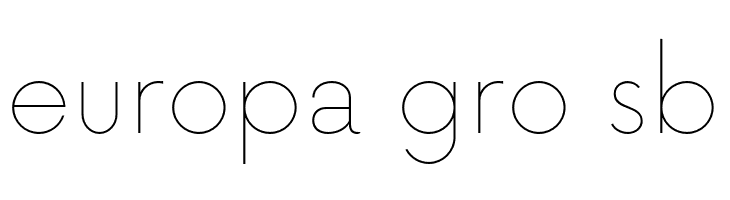
A modern, geometric sans-serif font with clean lines and balanced spacing.
A modern, geometric sans-serif font with a clean and versatile style.
A modern, geometric sans-serif typeface with clean lines and uniform strokes.
A sleek, minimalist font with thin, uniform lines and a modern aesthetic.